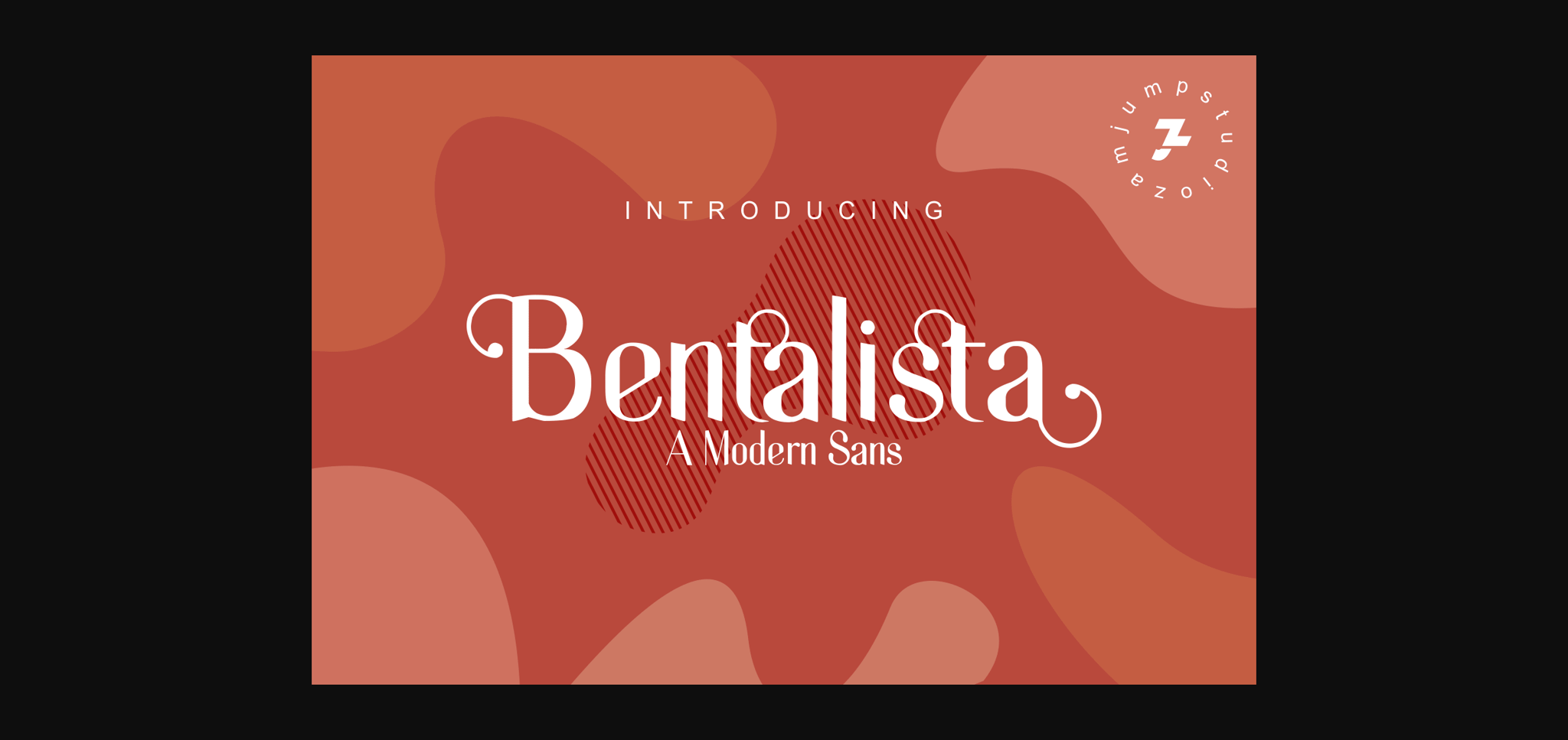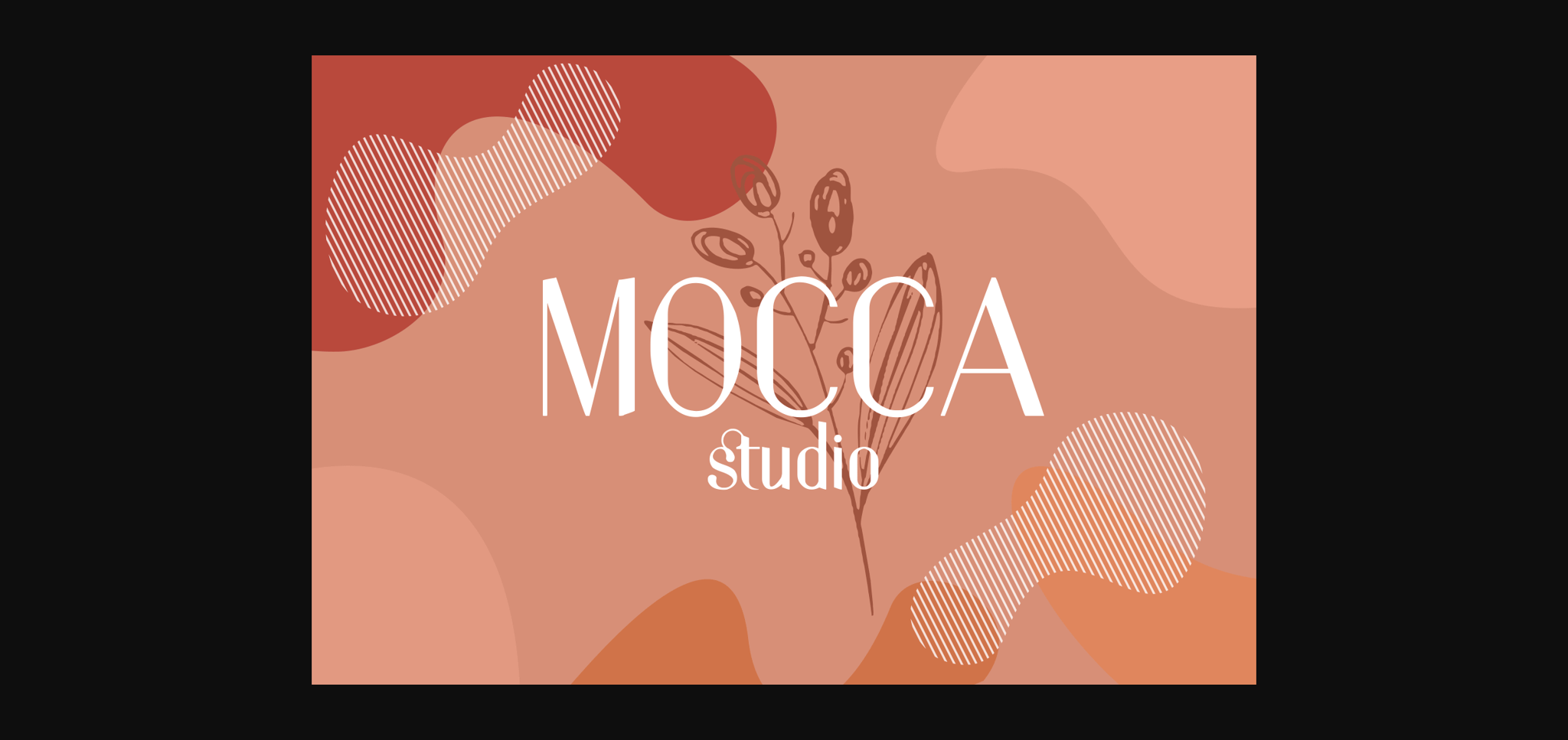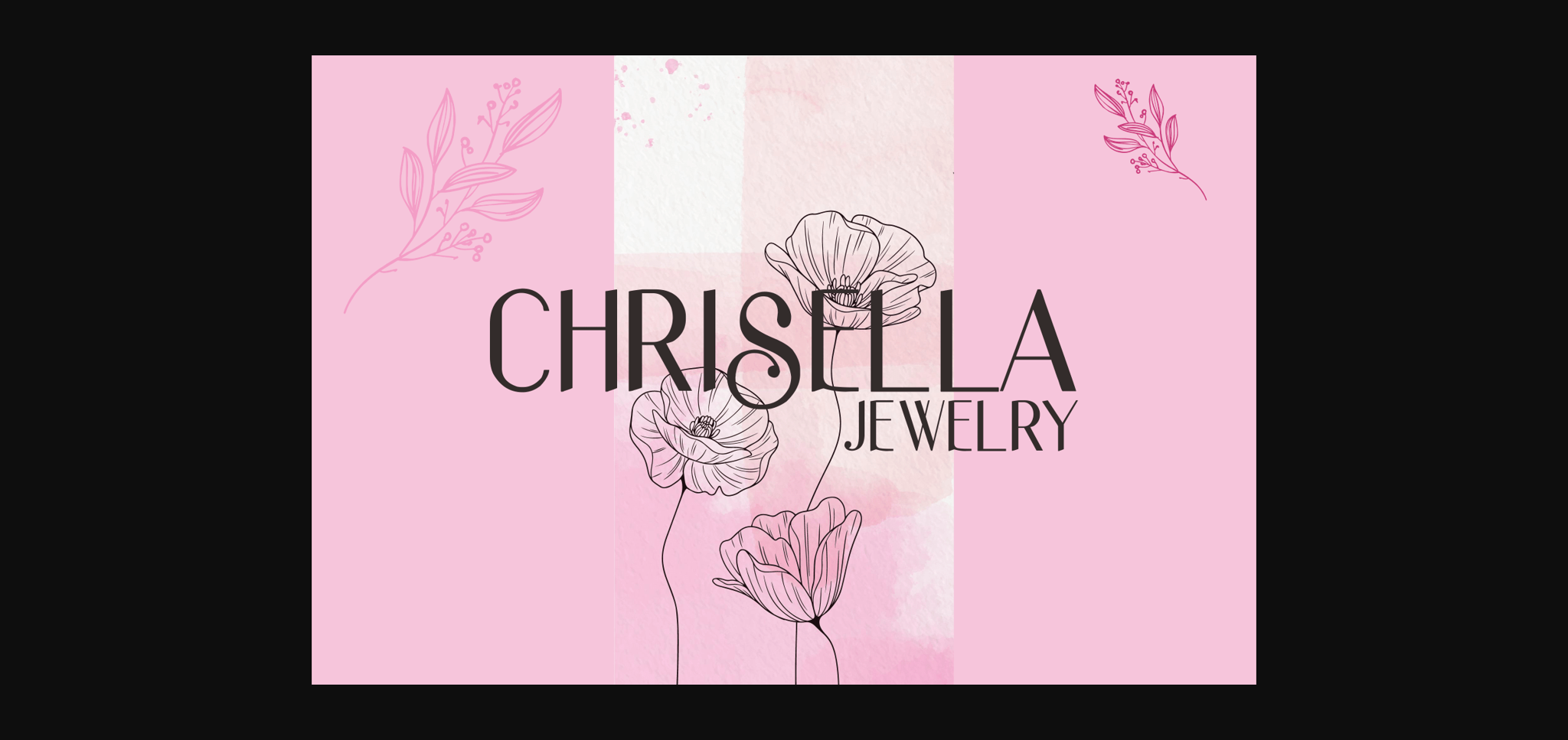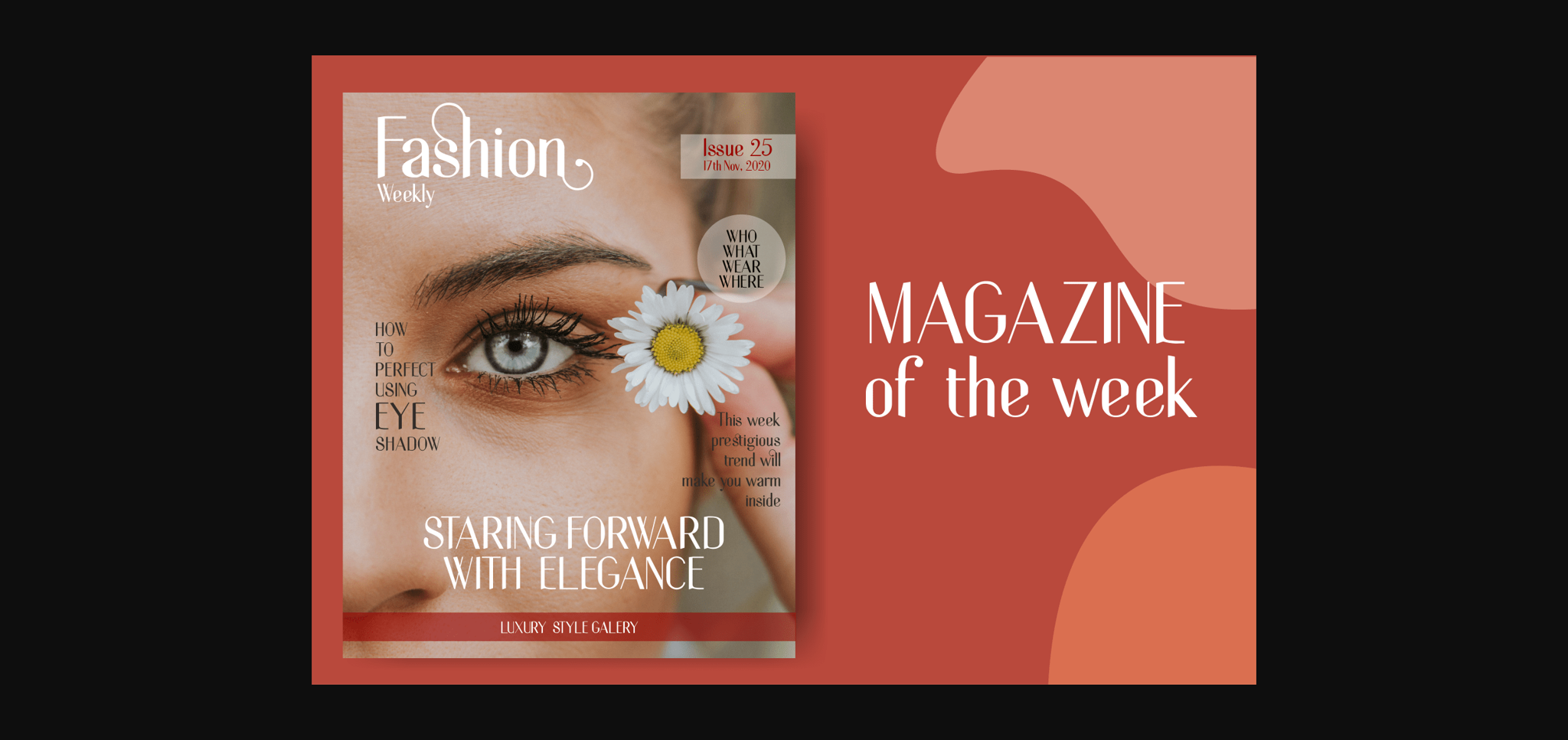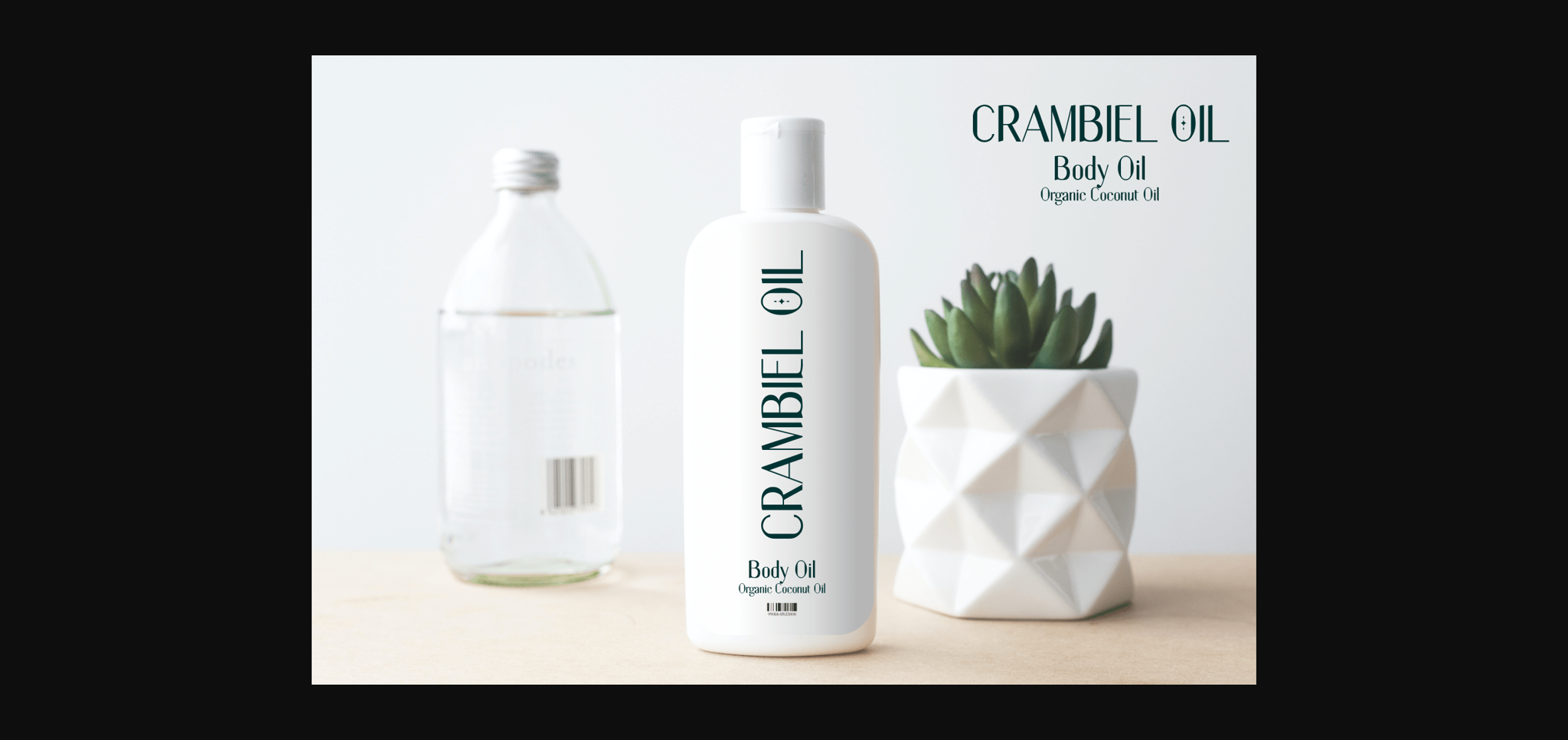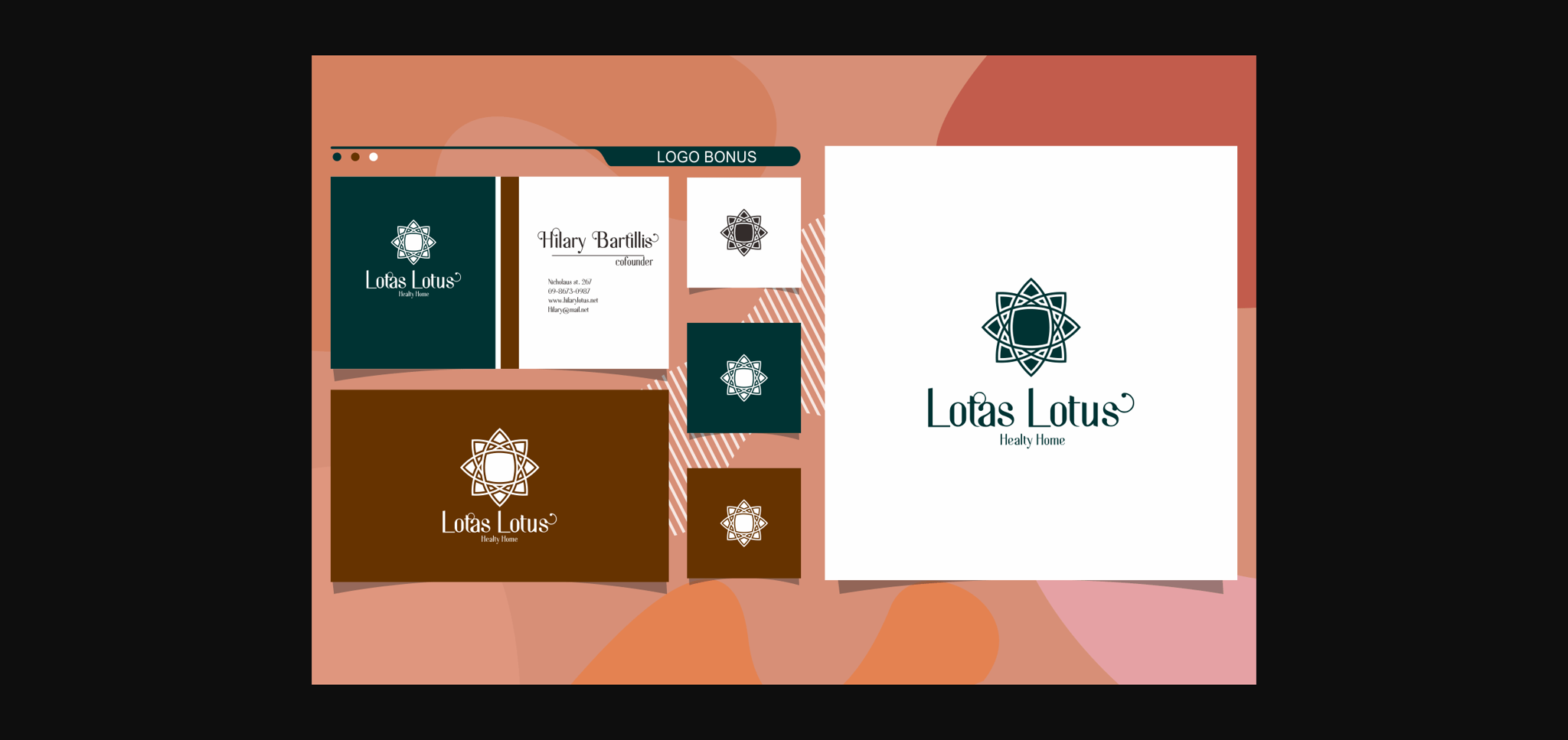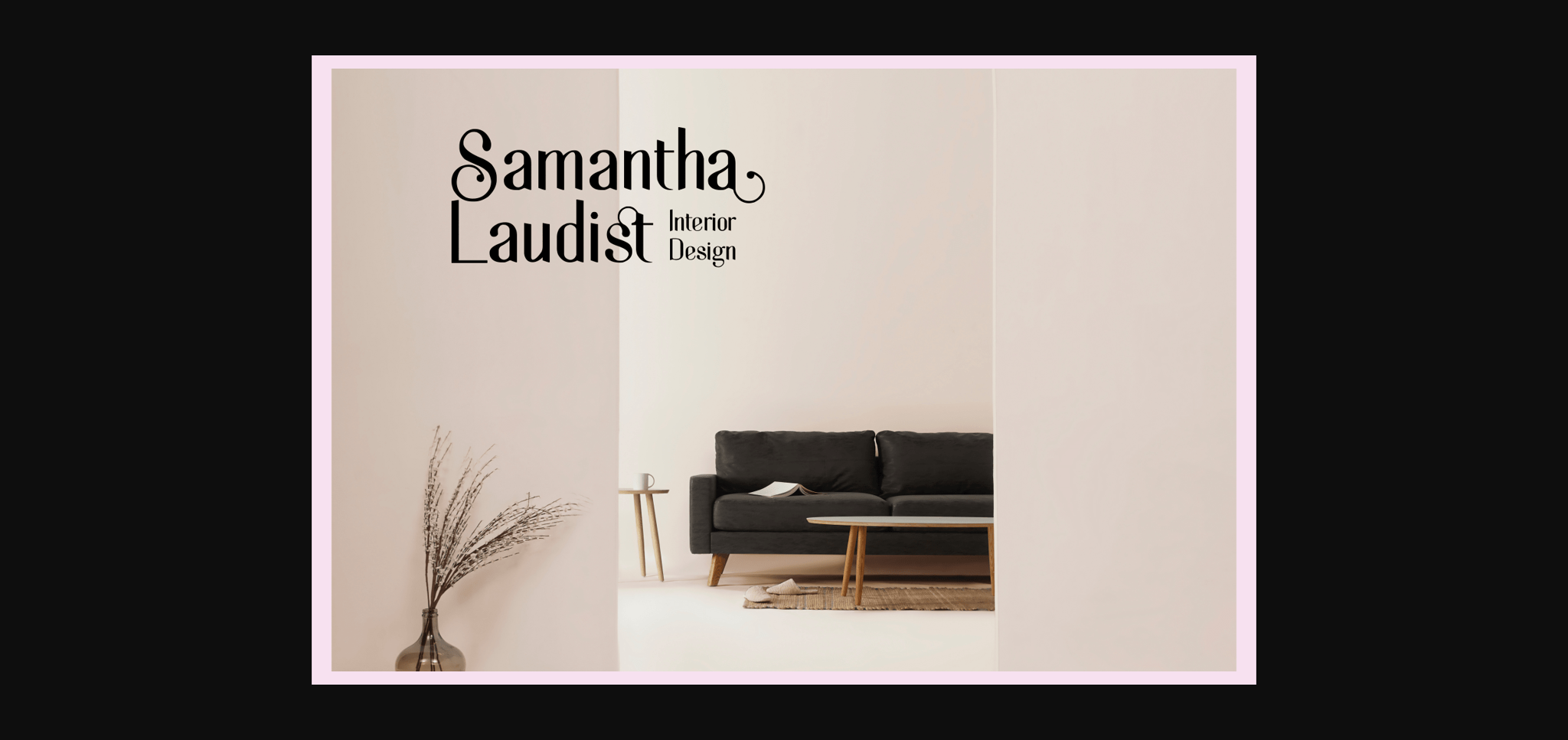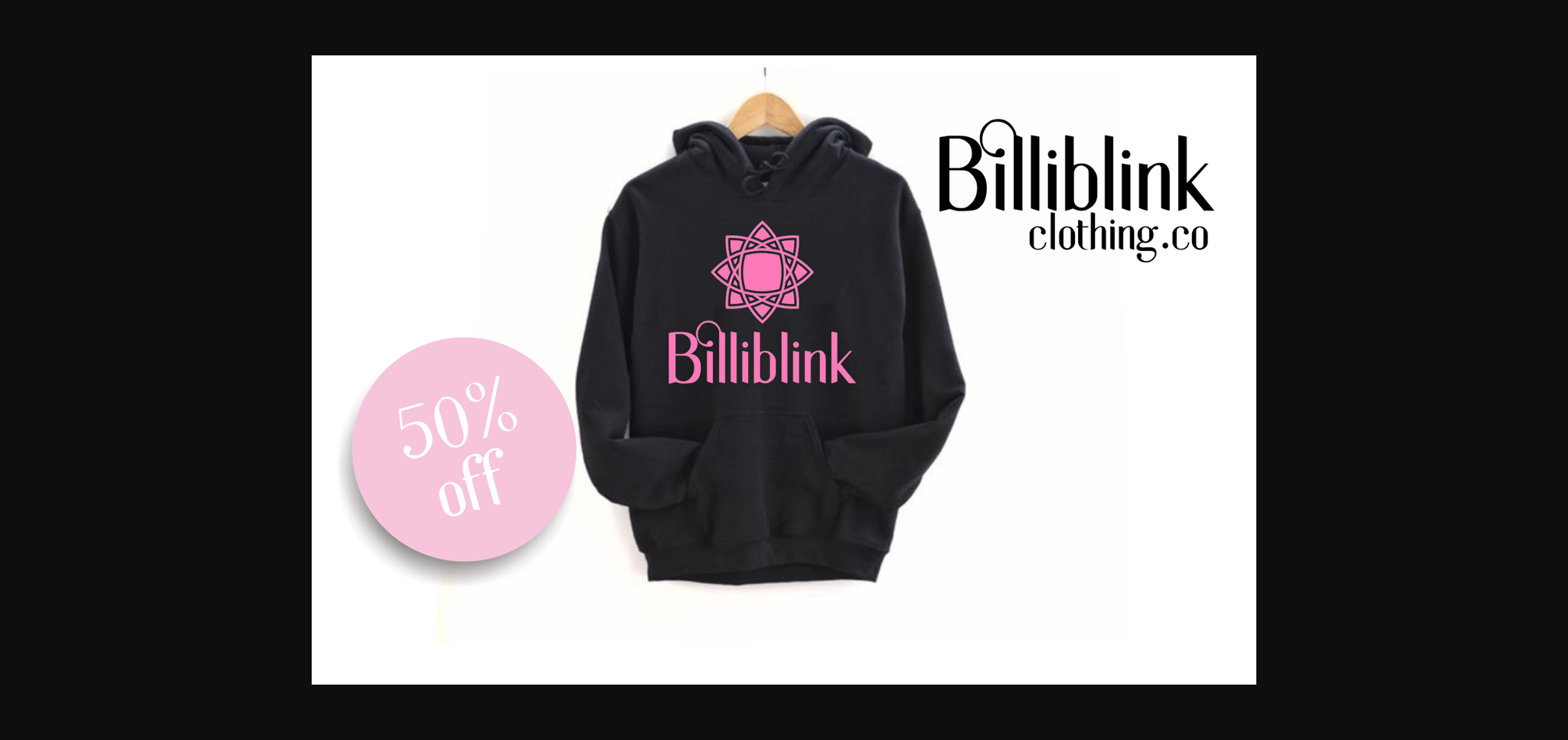
Bentalista Font
About Bentalista Font
Bentalista is an incredibly elegant and modern sans serif font. It looks cute and adept and is the ideal choice for a variety of designs, both formal and informal.